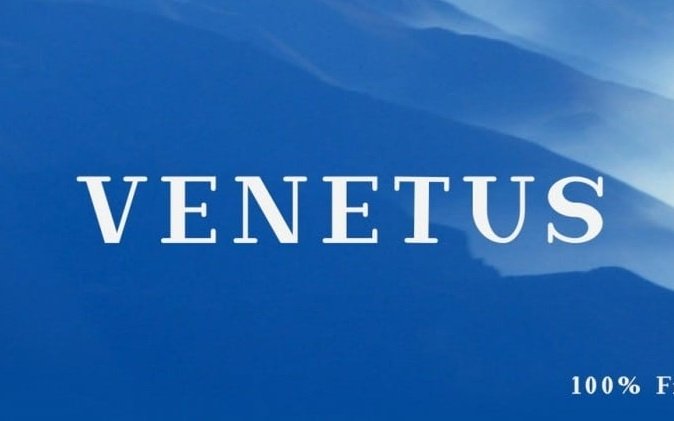
Venetus Font
Introducing the new Venetus Serif Font!!! Venetus is a medium contrast serif typeface with a smooth shapes and warm and soft look. The font is suitable for short text blocks, headlines, posters and more. For those of you who are needing a touch of elegant, stylish, classy, chic and modernity for your designs, this font was created for you!